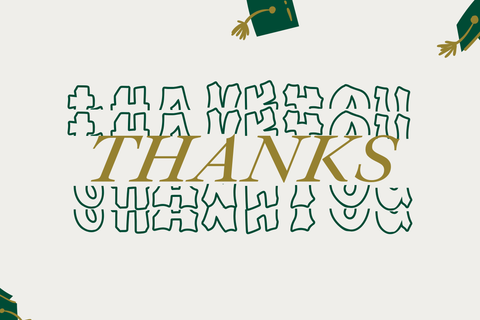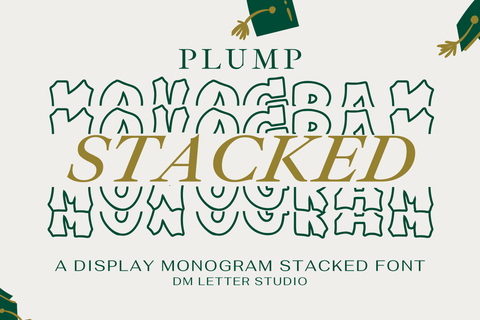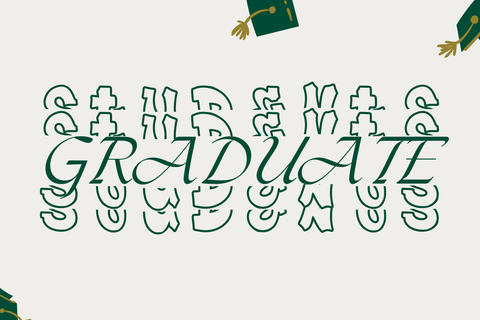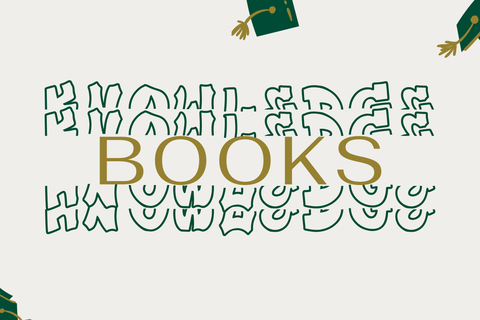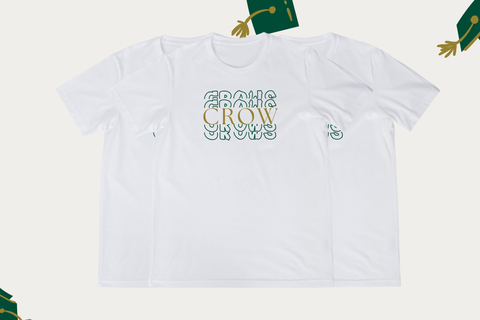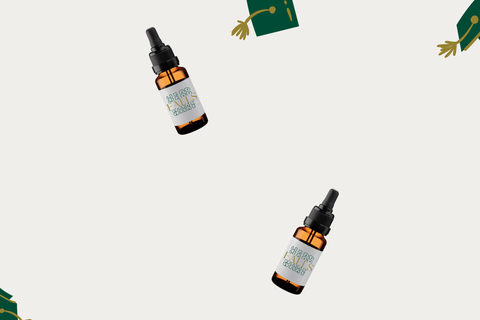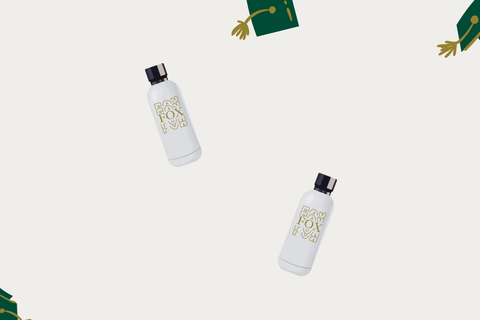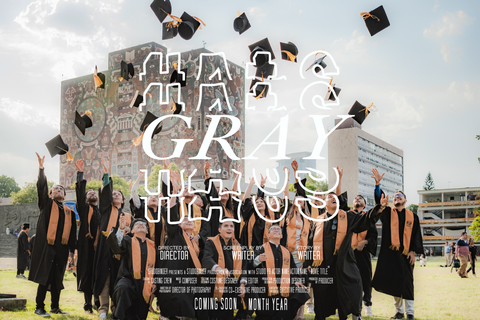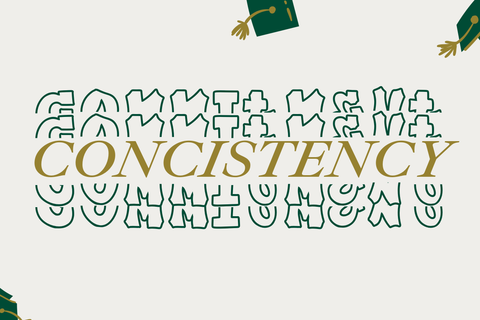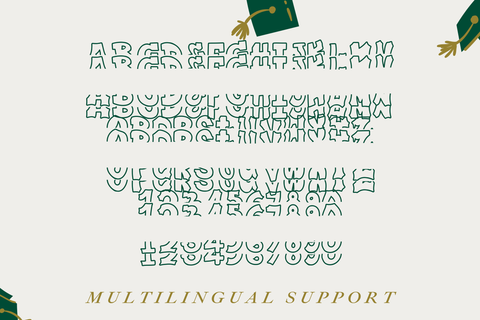
Plump Stacked Monogram Font
Meet Plump Stacked Monogram Font
Plump Stacked Monogram Font turns bold bubble shapes into neat, vertical name marks that sell. Rounded letters feel friendly and high impact, while tight line rhythm helps you stack initials and short words in compact spaces. Because counters stay open and spacing is even, designs read clearly on tiny tags and still look striking on banners, shirts, stickers, mugs, and signs. Use it for family name signs, classroom labels, market booths, gift packaging, and monogrammed apparel. Pair it with a clean sans for dates and prices, and your layouts come together fast.
Why makers love this stacked monogram font
First, it saves space without losing personality. Next, it cuts cleanly for Cricut, Silhouette, and laser projects. Then it layers beautifully with outlines or offsets, so two-color effects take minutes. As a result, you can batch custom orders for events, holidays, and teacher gifts with consistent quality and fewer edits.
Ready for personalization
Creative uses for Plump Stacked Monogram
Stack initials for door hangers, tumblers, lunch boxes, and gym bottles.
Set short words like MOM, DAD, BESTIE, COACH, or GRADS on stickers and tees.
Build label systems for classrooms, craft carts, and pantry jars.
Add an outline pass or inner fill to create quick bubble-letter depth.
Clean curves tuned for vinyl cutting, laser, print, DTF, and sublimation
Design tips for stacked clarity
Keep lines short and chunky. Tighten line spacing to emphasize the stack, and add a slight tracking increase on all caps. For photos, drop a soft shadow so strokes lift from busy backgrounds. Finally, try palettes like melon with cream, aqua with coral, or pine with gold to keep the style cheerful and gift-ready.